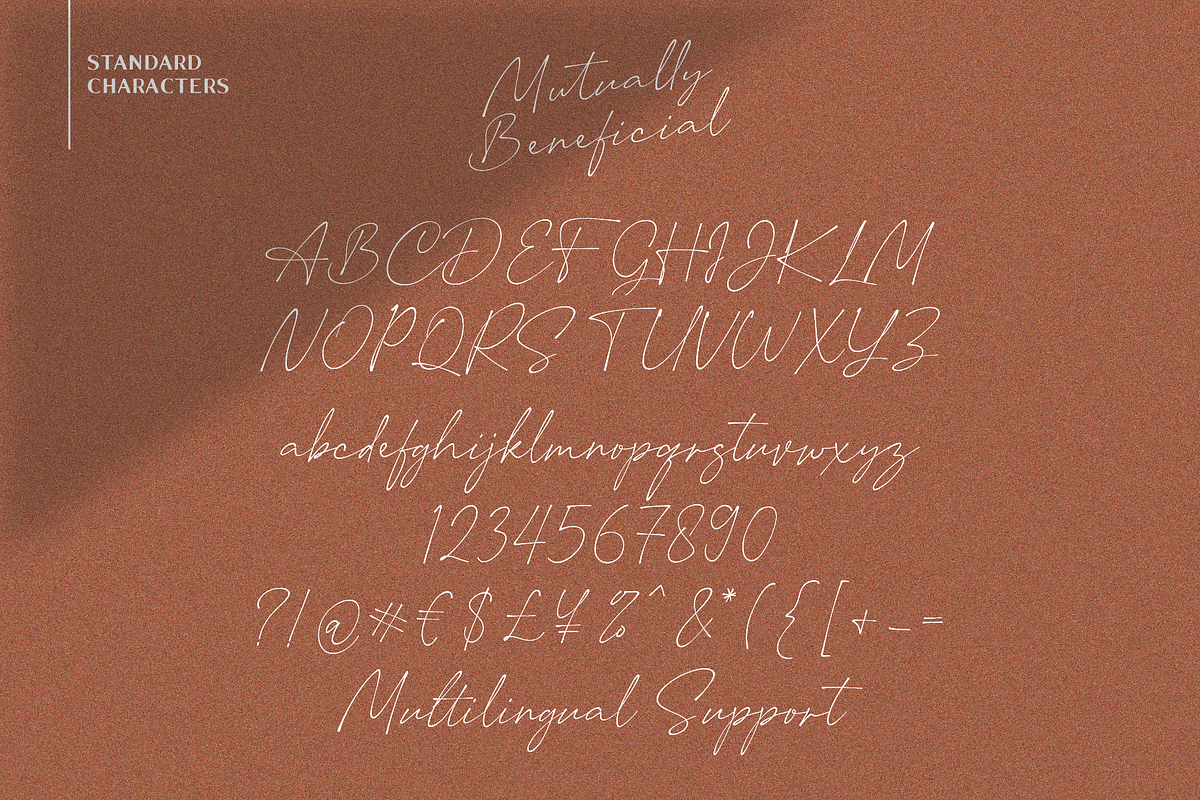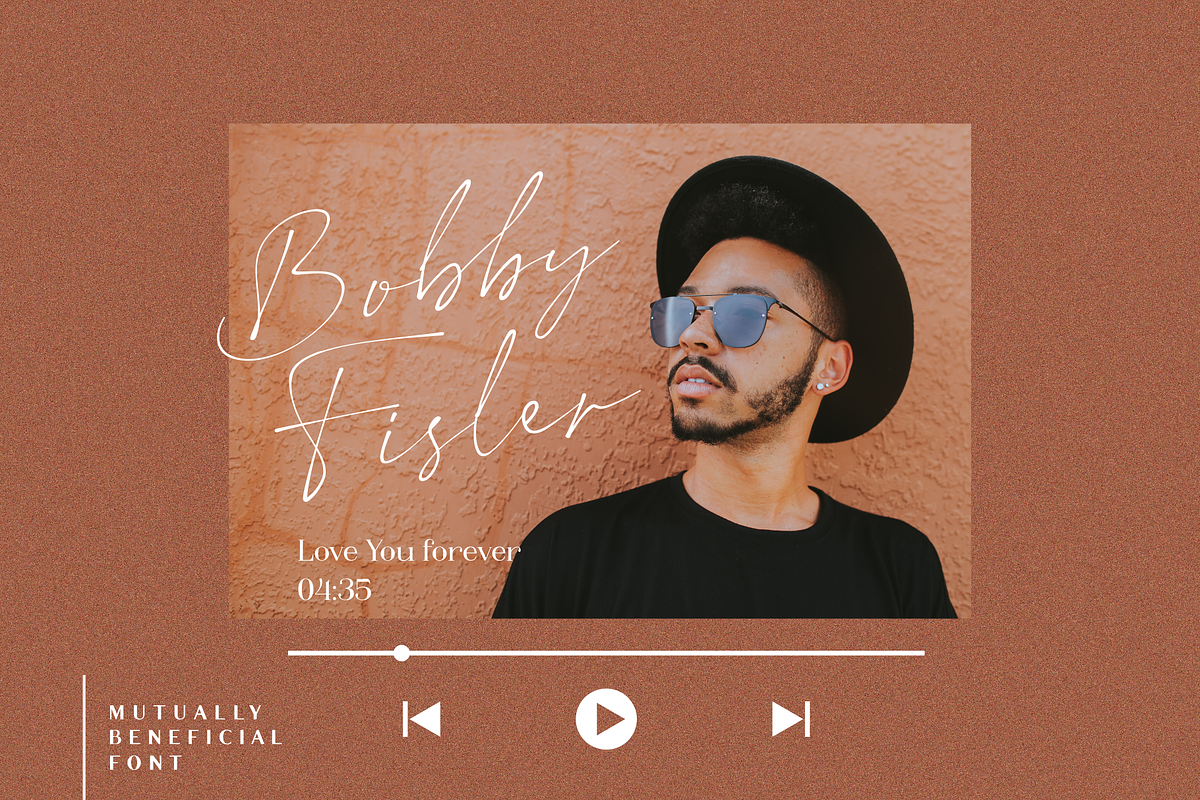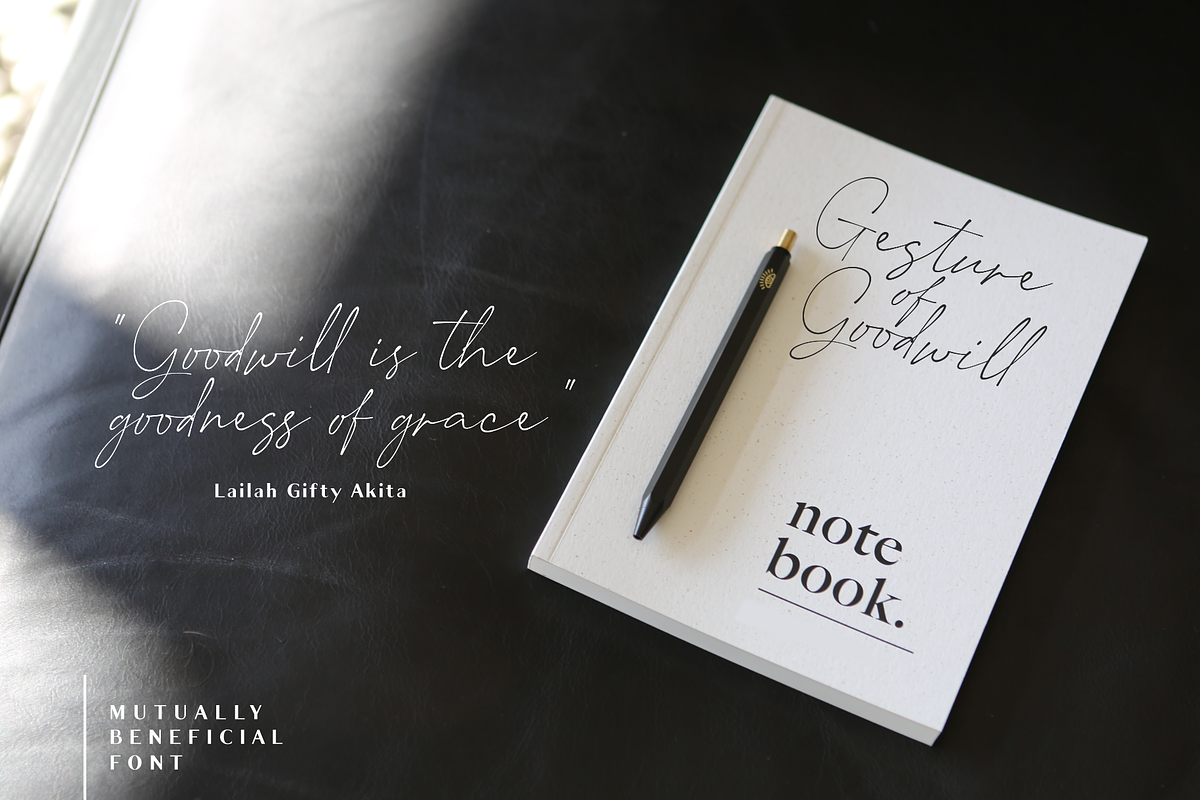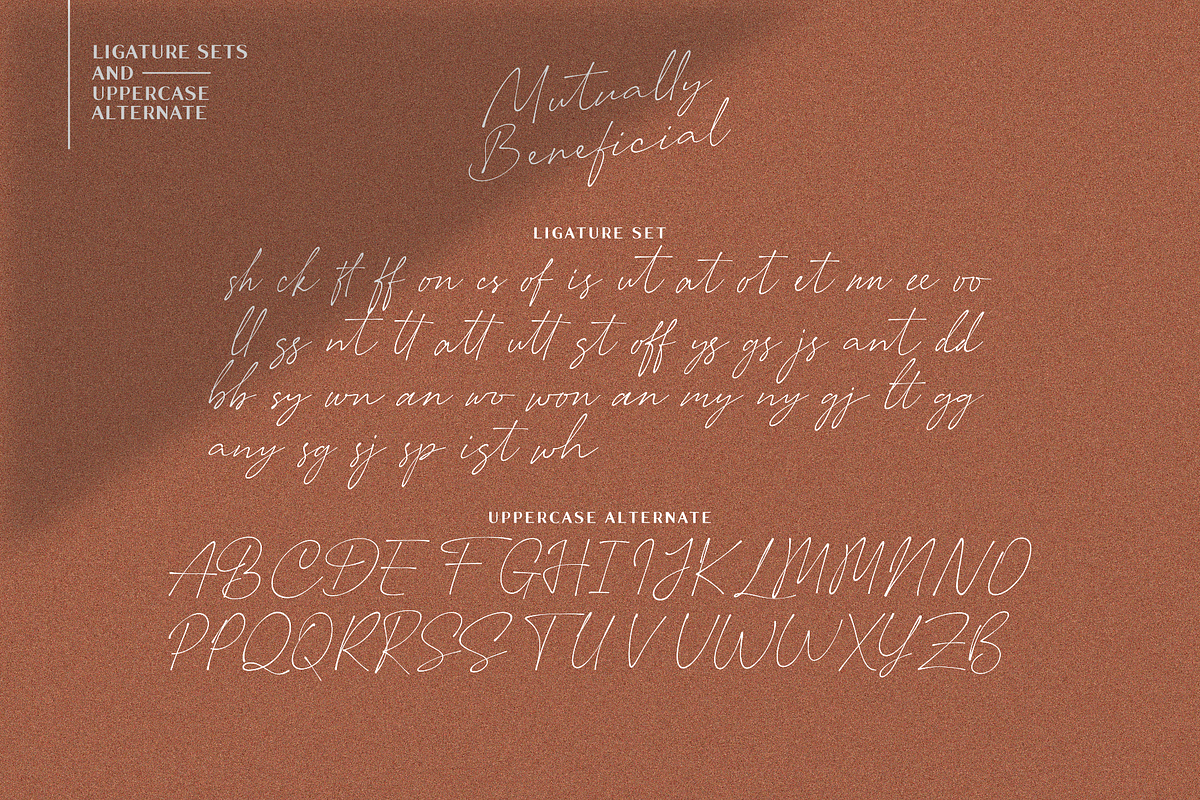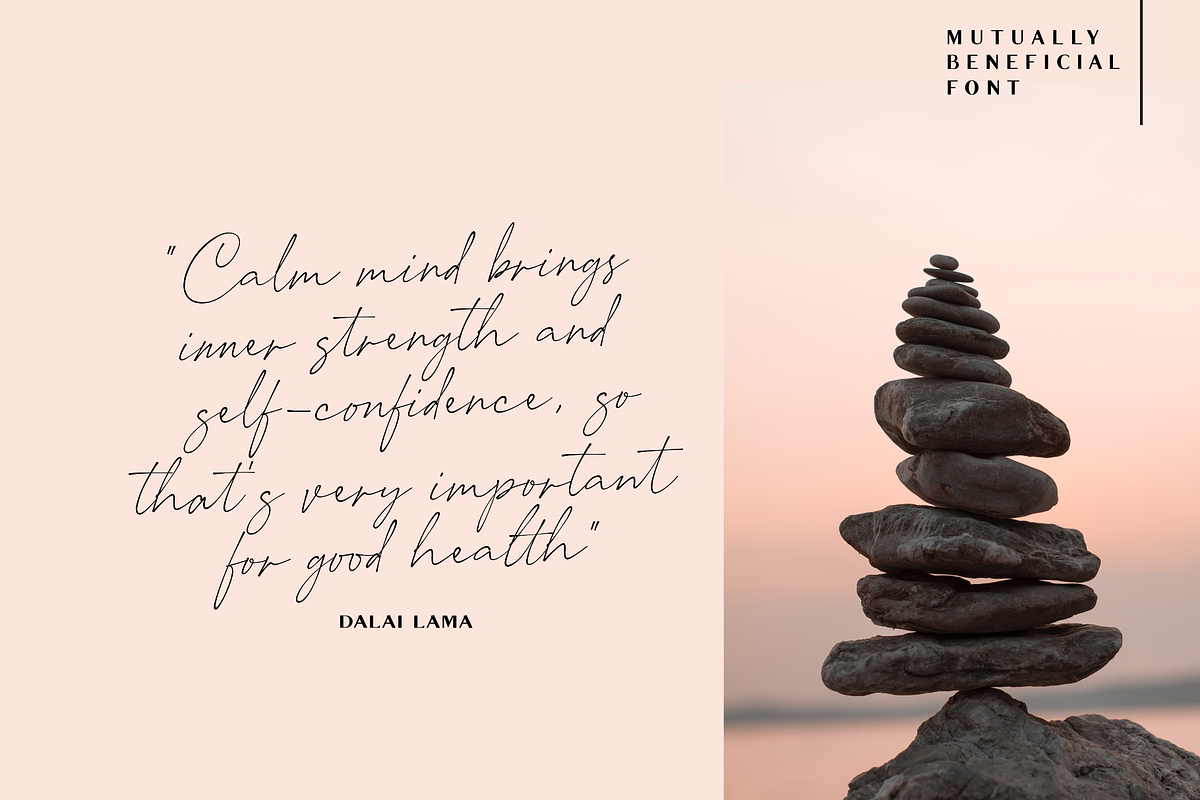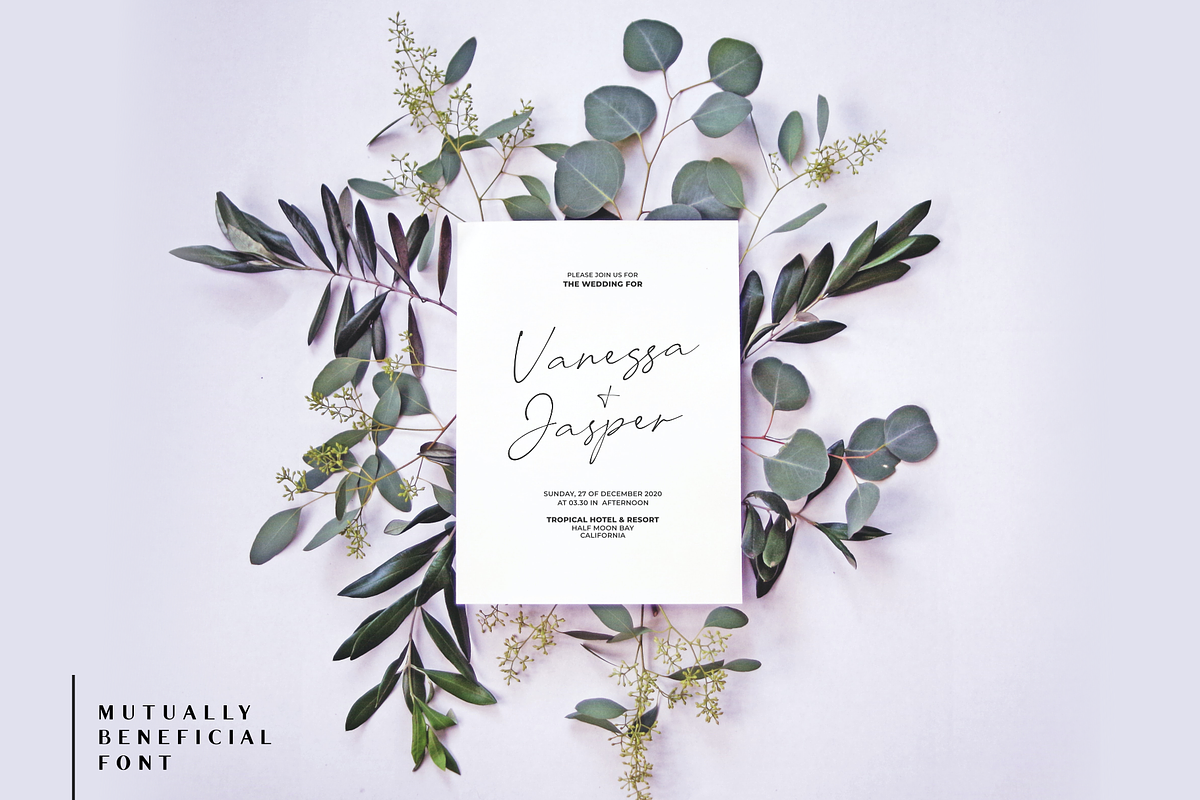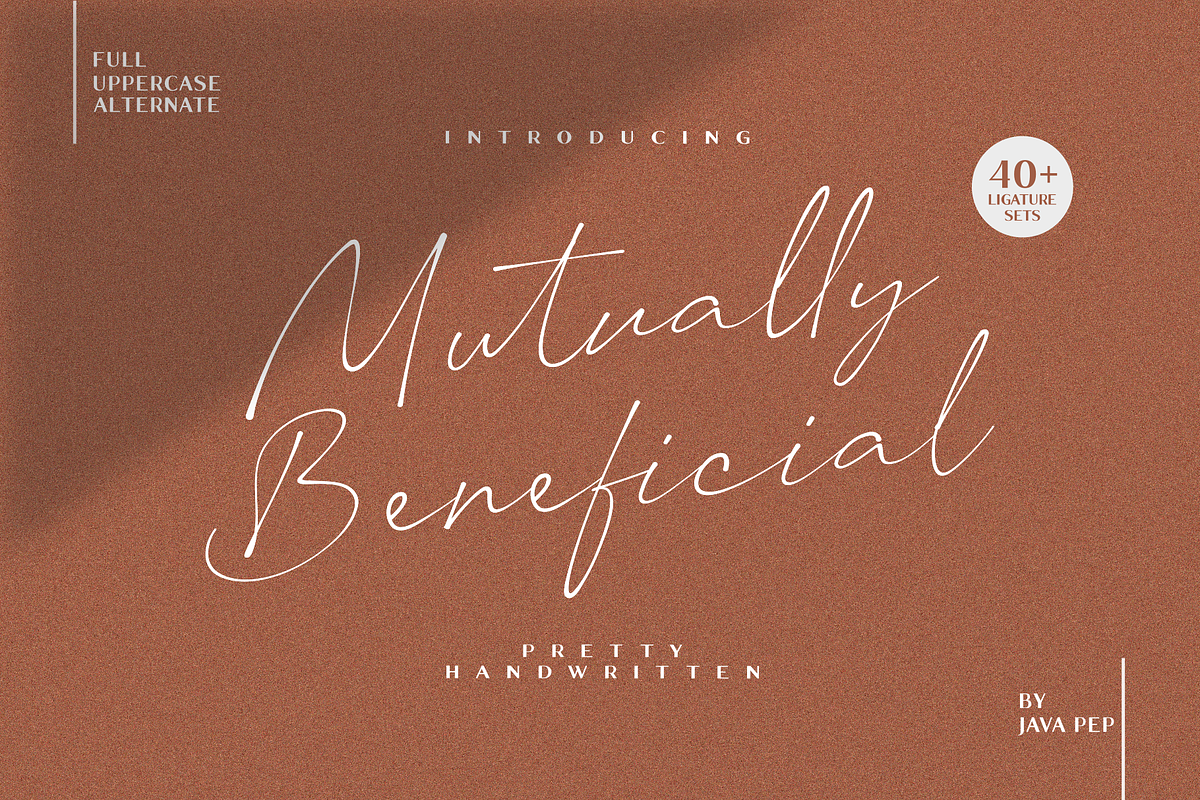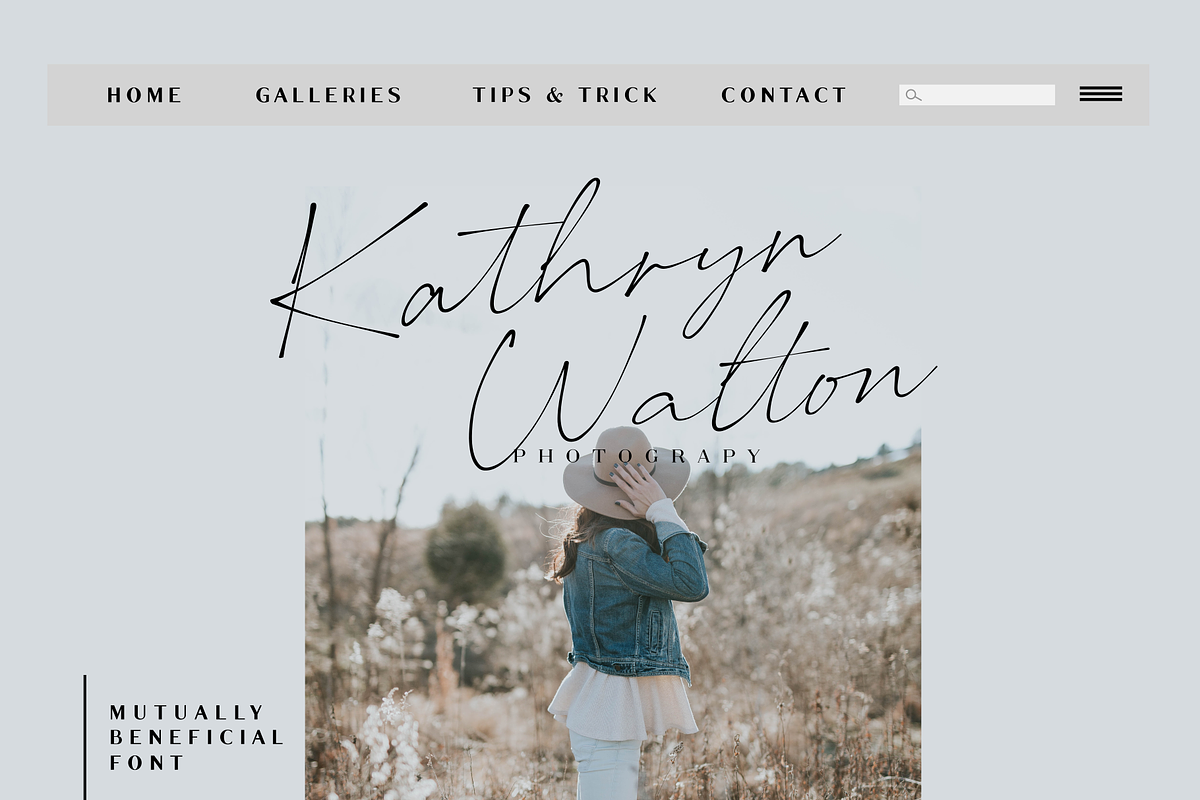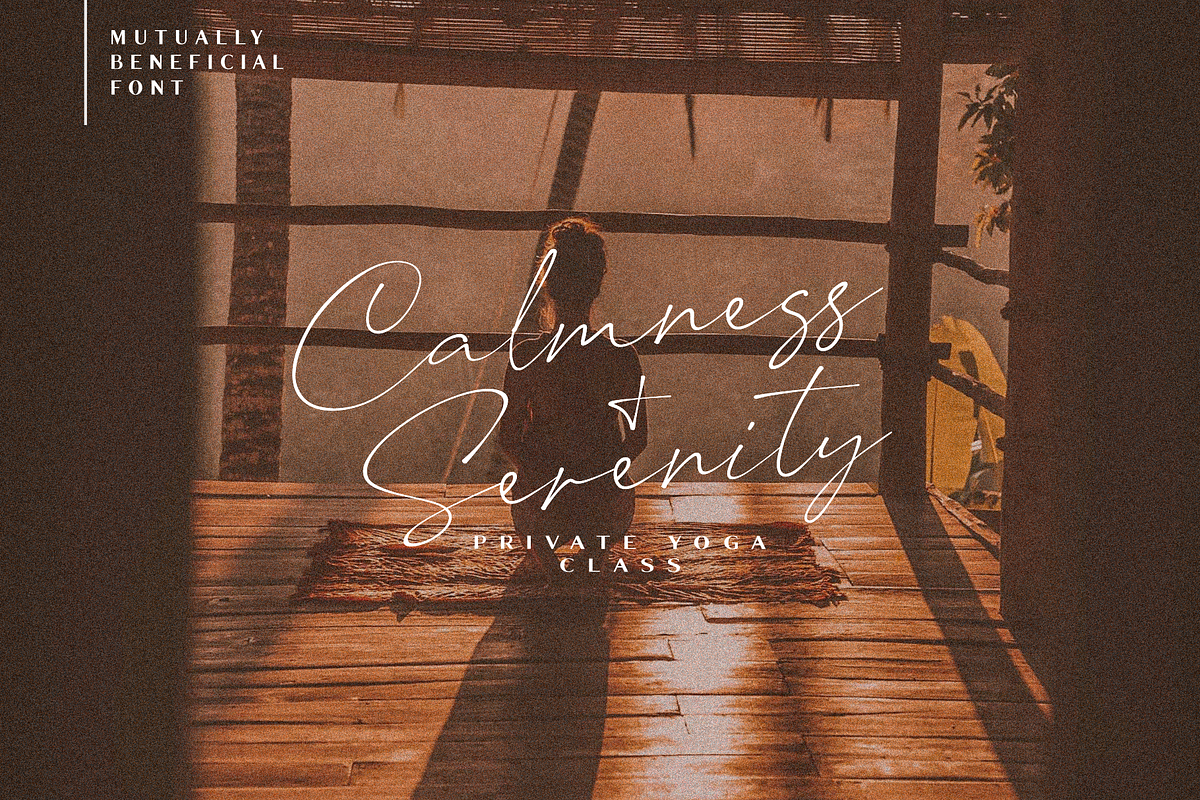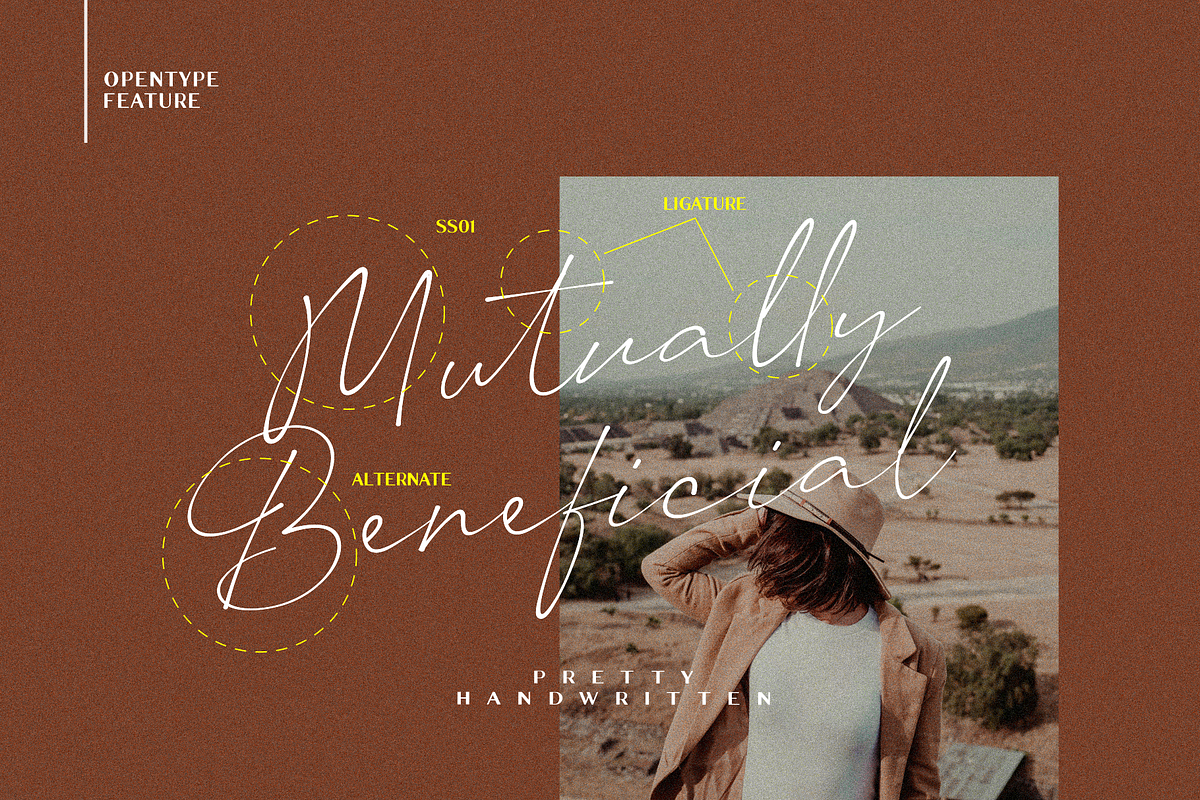
Mutually Beneficial
Introducing handwritten style font called Mutually Beneficial. For feeling like a handwritten style vibe, this font comes with more than 40+ ligature sets and full alternate in the uppercase characters. Mutually Beneficial font is perfect for branding, headlines, subtitle, wedding invitations, greeting cards, signature name, logotype, handwritten quotes, advertising, social media post, etc.